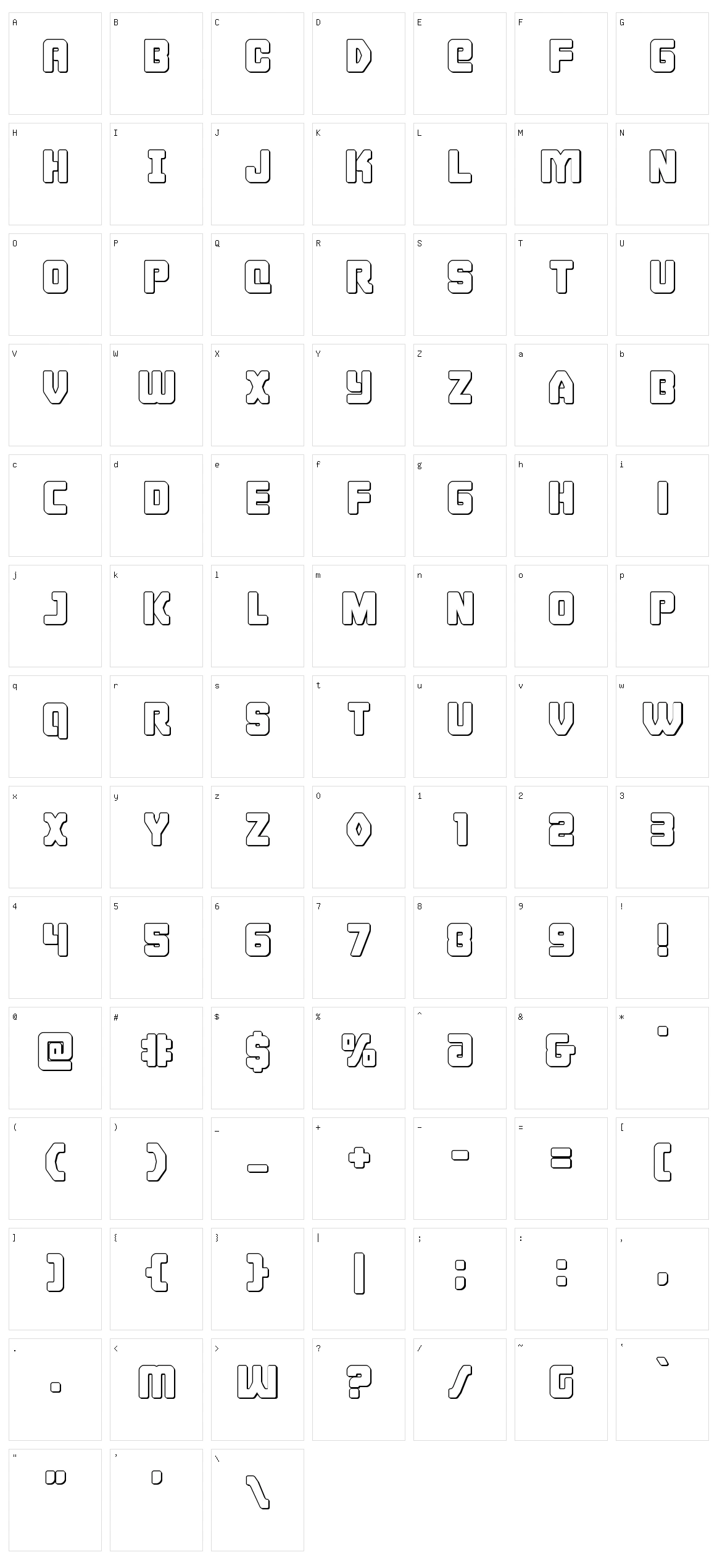
Cyborg Rooster
This font comes with the following 19 versions: Regular, Italic, Condensed, Condensed Italic, Expanded, Expanded Italic, 3D, 3D Italic, Outline, Outline Italic, Laser, Laser Italic, Gradient, Gradient Italic, Halftone, Halftone Italic, Semi-Italic, Super-Italic and Leftalic.